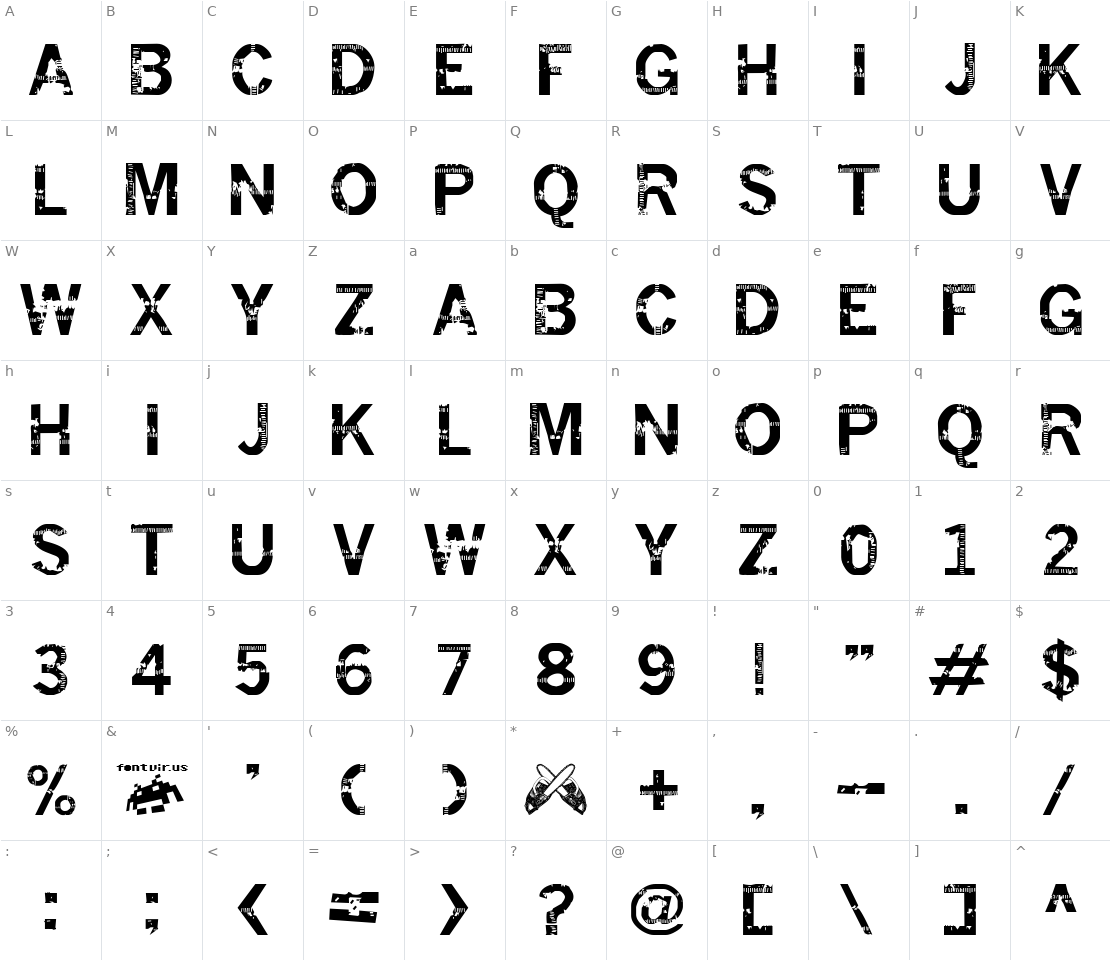
Insomnesia
Insomnesia is an uppercase display face from fontvir.us with heavily eroded letterforms that look like they've been left to decay on a wall somewhere. The texture is gritty and uneven, with chunks missing from each character in a way that feels genuinely corroded rather than decoratively roughed up. Built for horror posters, dark editorial work, and headlines where you want type that looks like it's barely holding itself together.